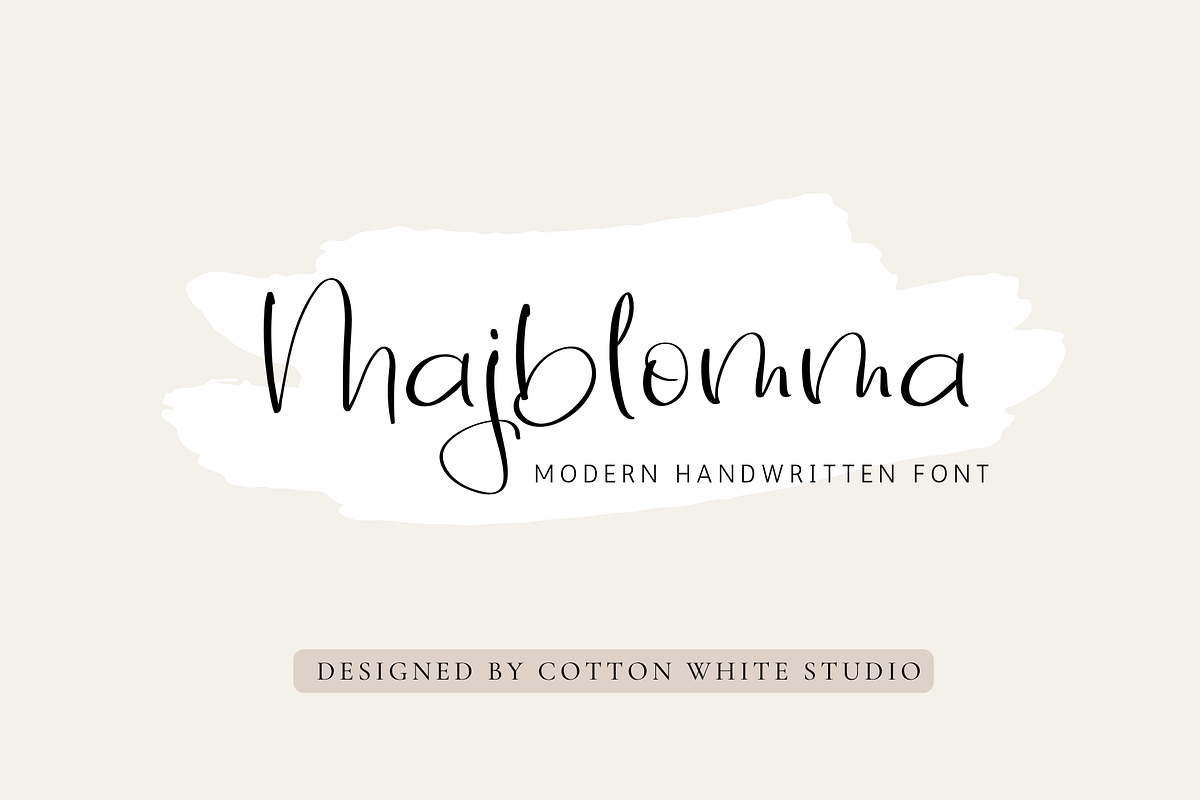
Majblomma Script Free Download
Majblomma Script Font Free Download
Majblomma Script Font Free Download is a delicate and expressive handwritten typeface that brings elegance and warmth to your creative projects. With its flowing strokes, soft curves, and natural rhythm, this script font is ideal for wedding invitations, feminine branding, lifestyle blogs, greeting cards, and romantic packaging designs.
Inspired by the gentle beauty of floral forms, Majblomma Script Font Free Download combines artistic flair with refined readability. It’s a favorite for designers who want to convey emotion, softness, and a touch of personal charm in their work.